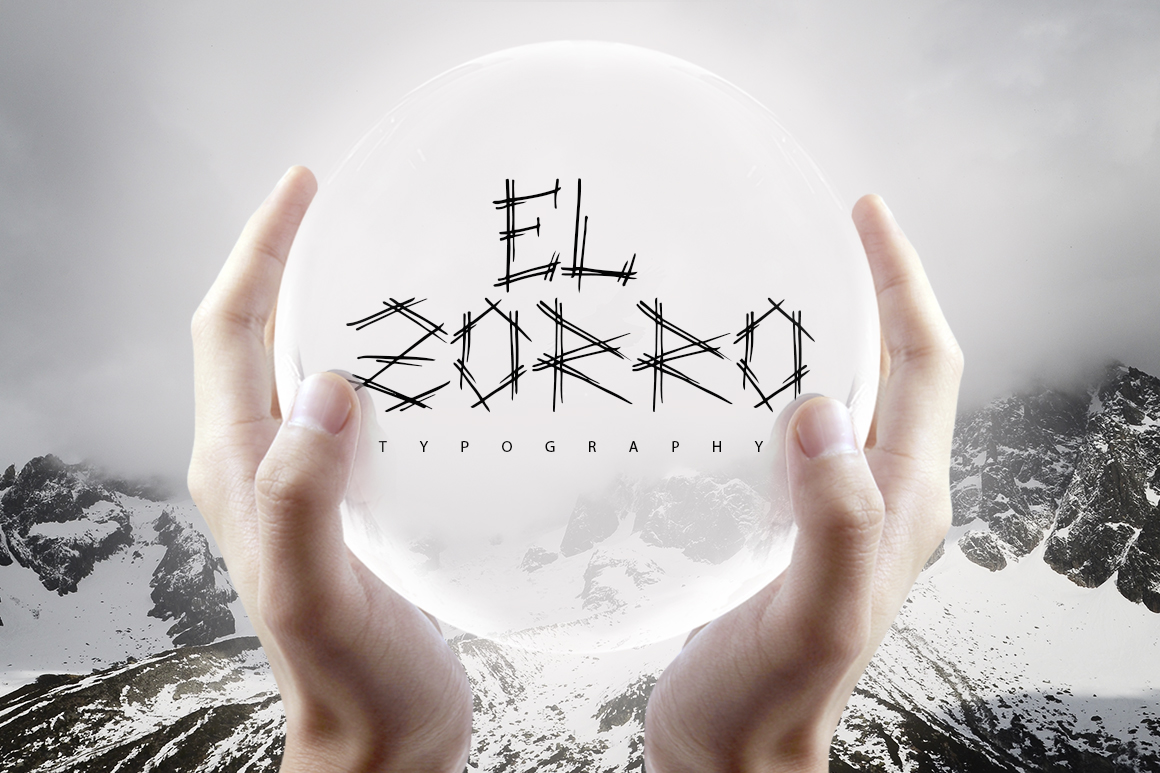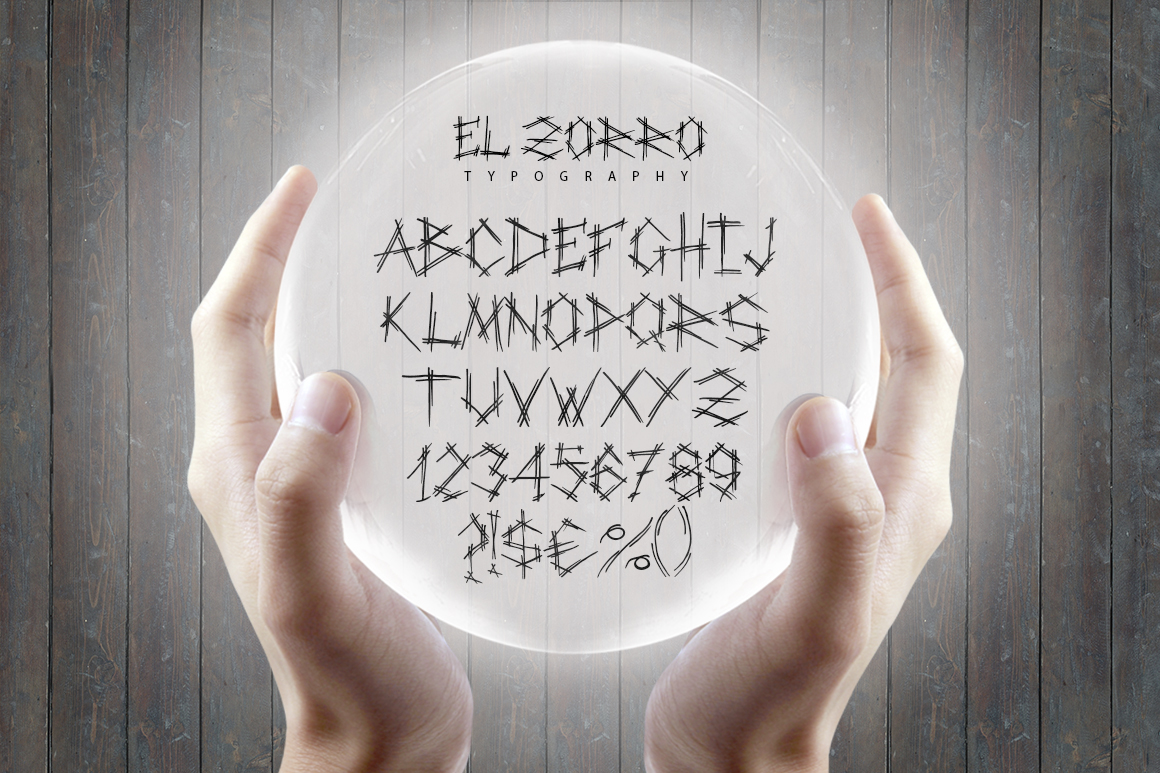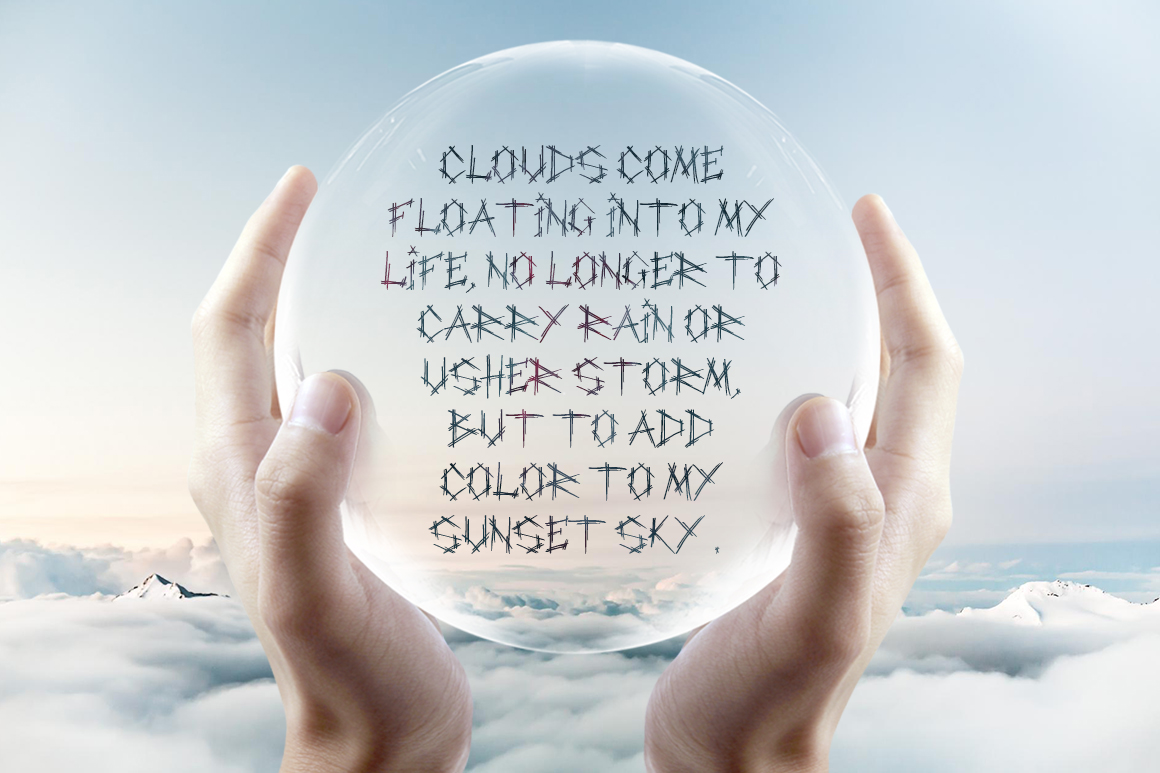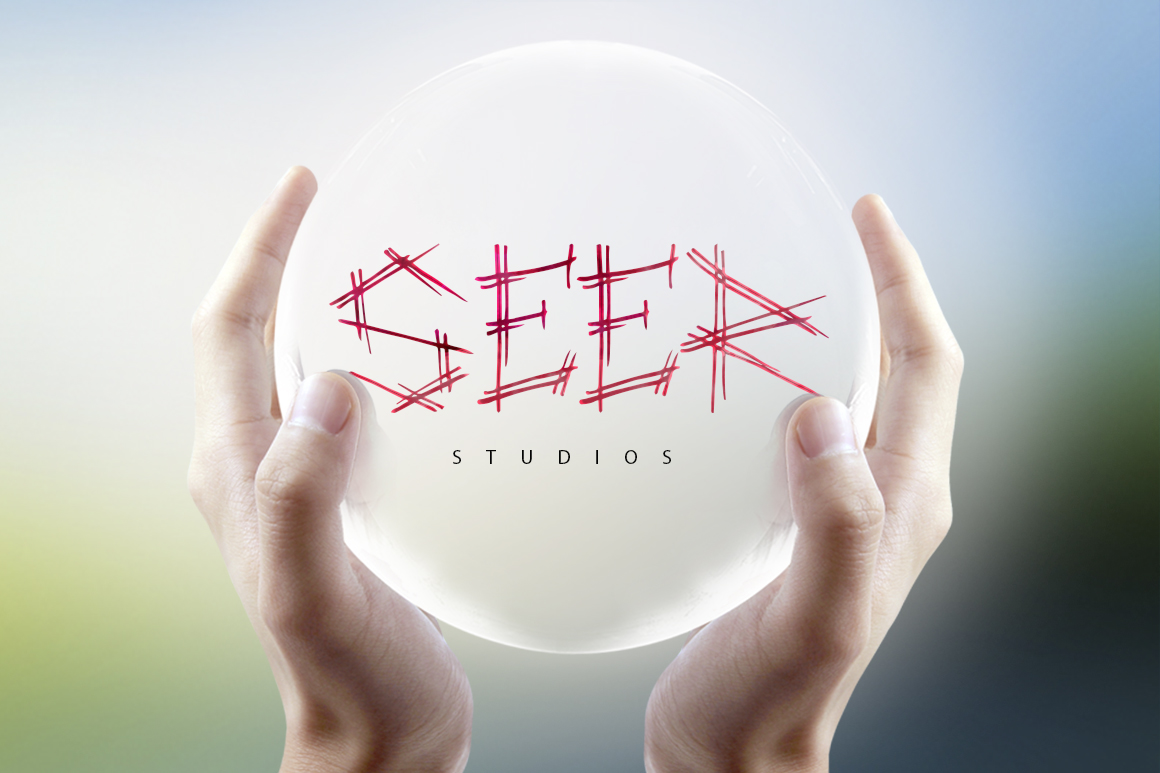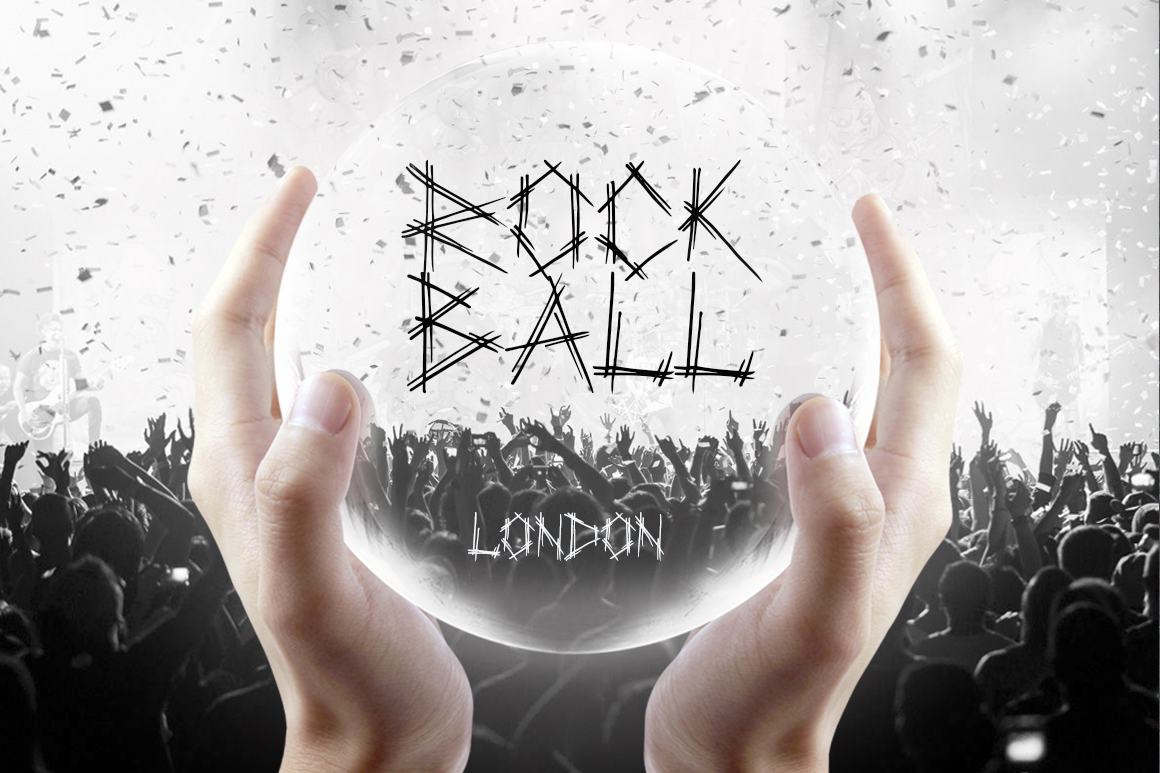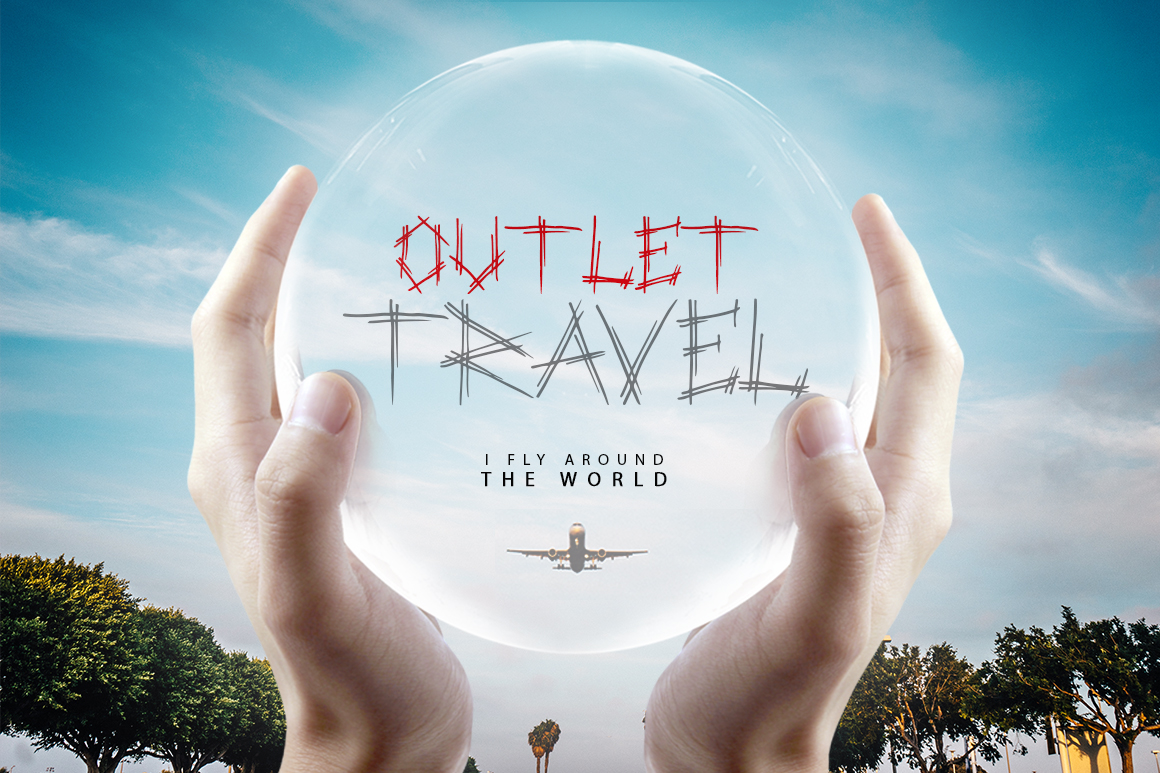
El Zorro Font
About El Zorro Font
El Zorra is a handwritten font that consists out of thin lines.
Every letter consists out of multiple thin pen strokes.